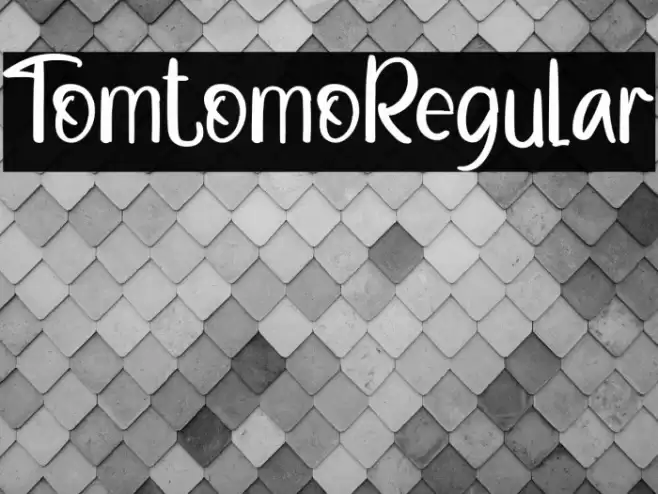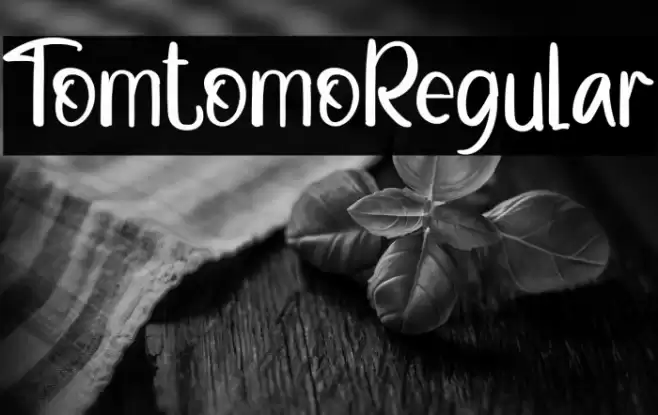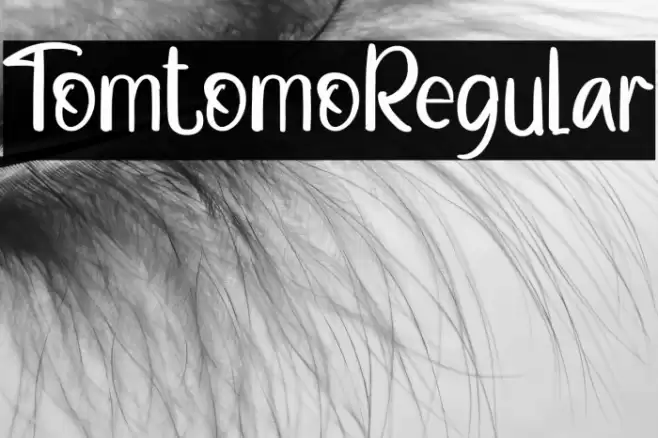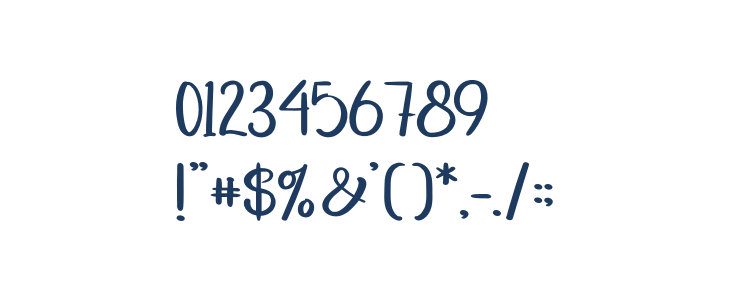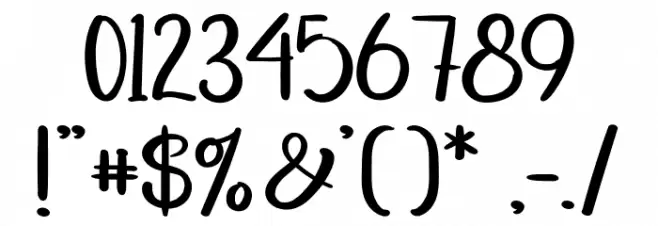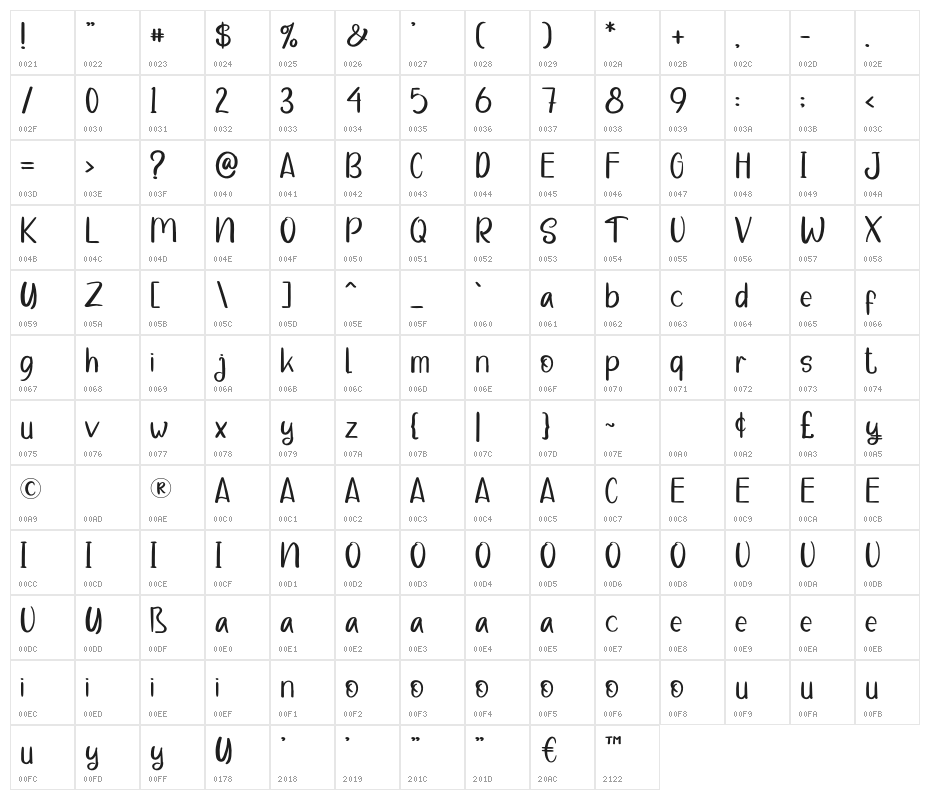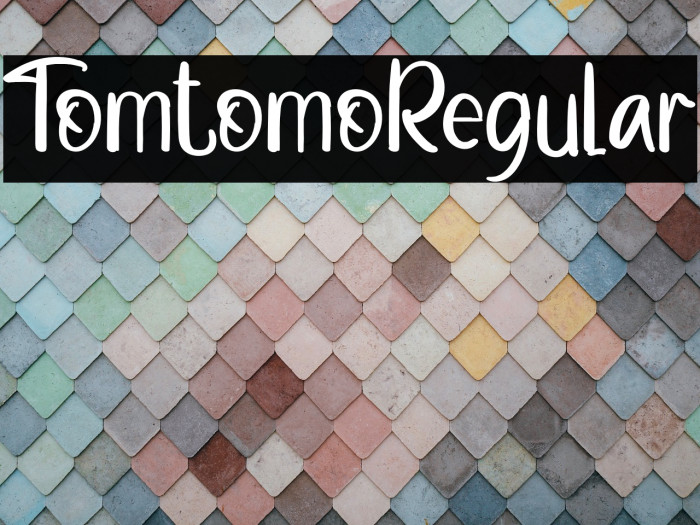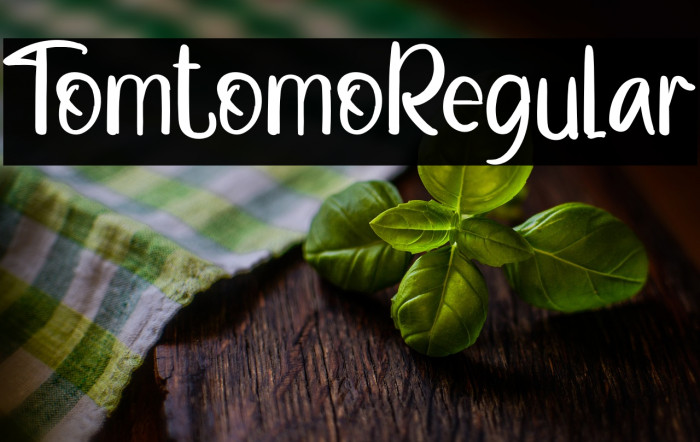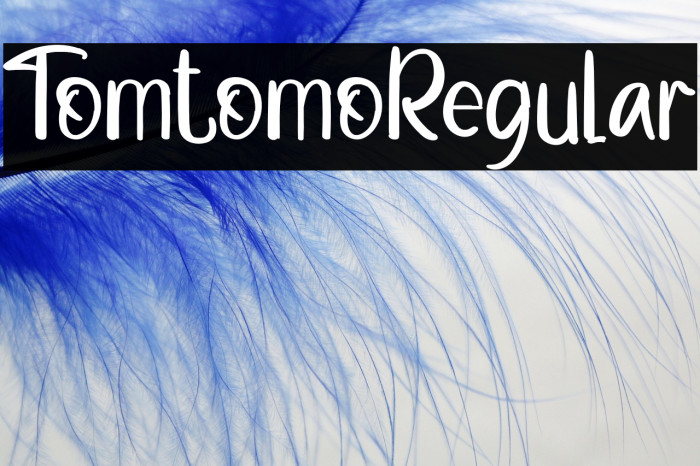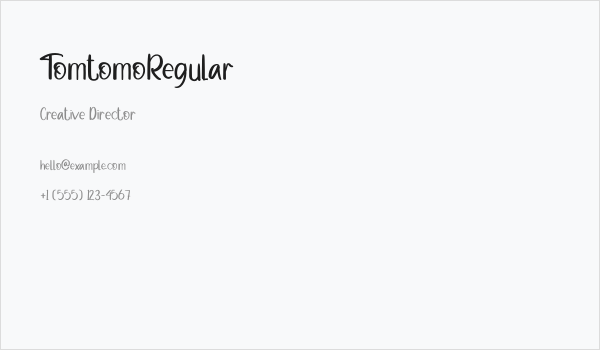
TomtomoRegular Font
TomtomoRegular Description
This playful and whimsical font features a handwritten style with smooth, flowing curves and a casual appearance. The characters are slightly elongated, giving them a unique and friendly look. The uppercase and lowercase letters maintain a consistent style, with rounded edges and a slight slant that adds to the informal feel. The numerals and special characters are designed to match the overall aesthetic, ensuring a cohesive look across all text. This font is perfect for projects that require a personal touch, such as invitations, greeting cards, or playful branding.
A playful, handwritten font with smooth curves and a casual style from Regular fonts.
- Proposed Projects: Ideal for invitations, greeting cards, playful branding, and personal projects.
- Overall Style: Playful
- Use Case: Headlines, Logos, Invitations